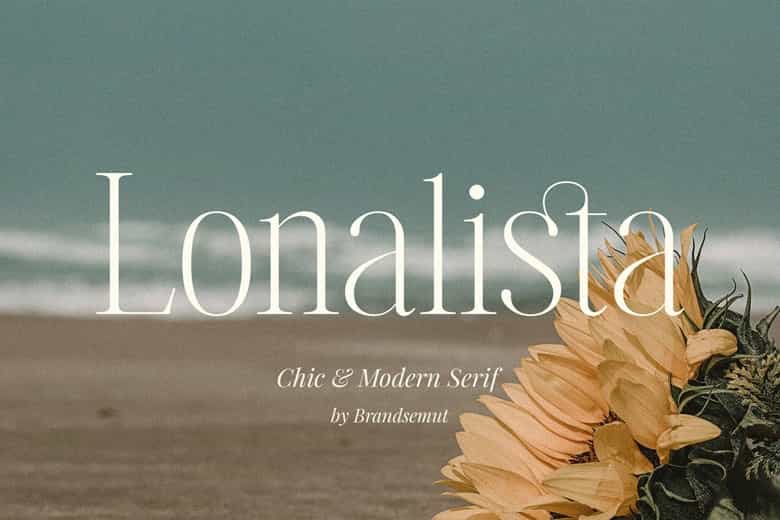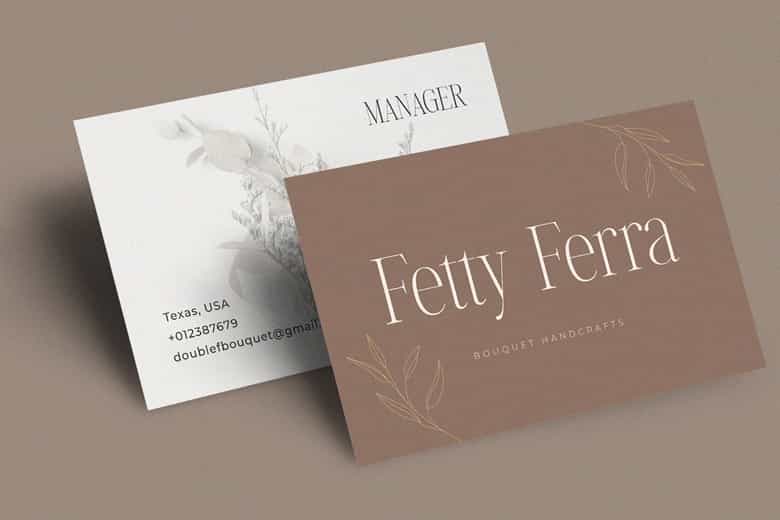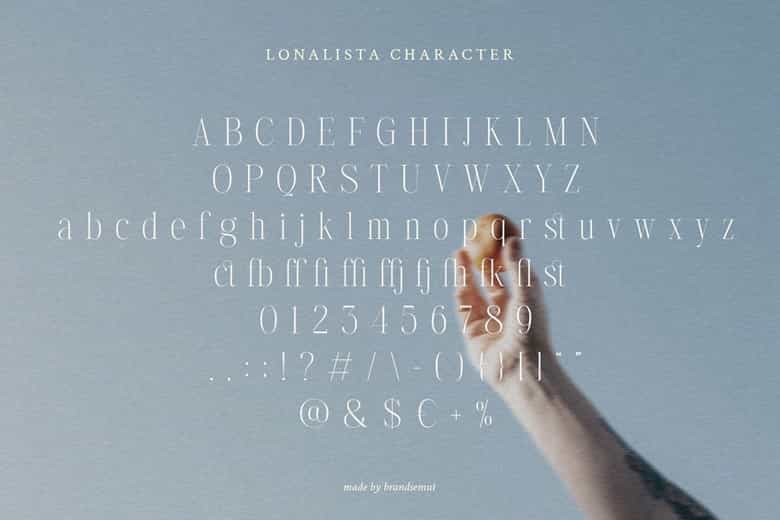
Lonalista is a contemporary and elegant serif font, that works well for titles, logos, branding, magazines, packaging, invitation, etc. Lonalista offers simplicity in designs with straight edge and soft curves to make any project look more elegant.